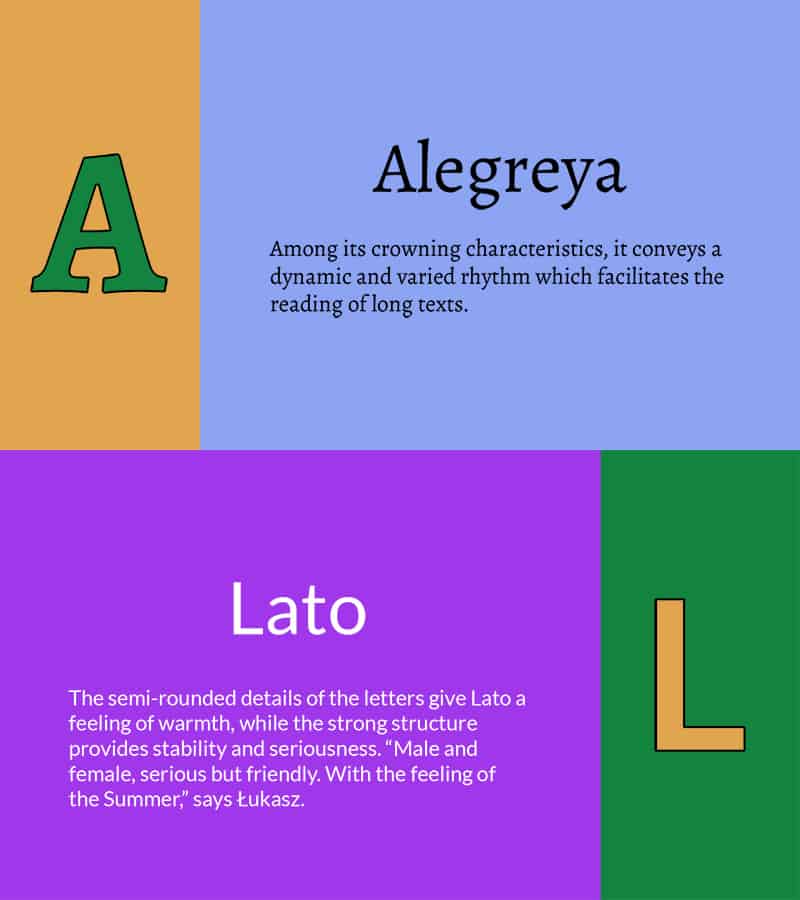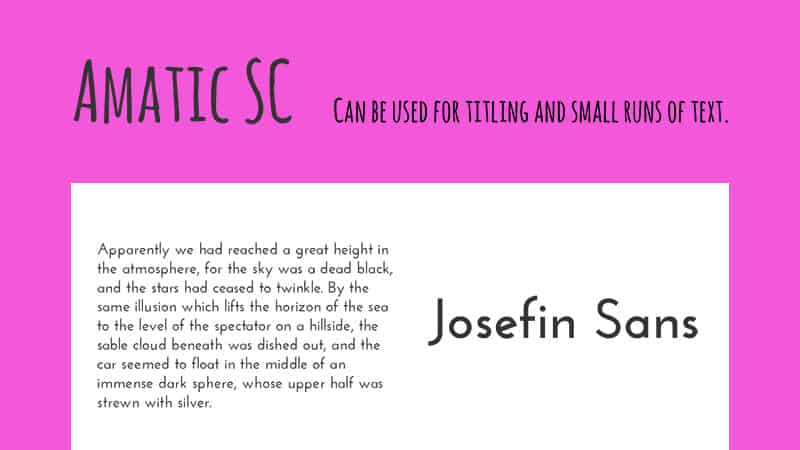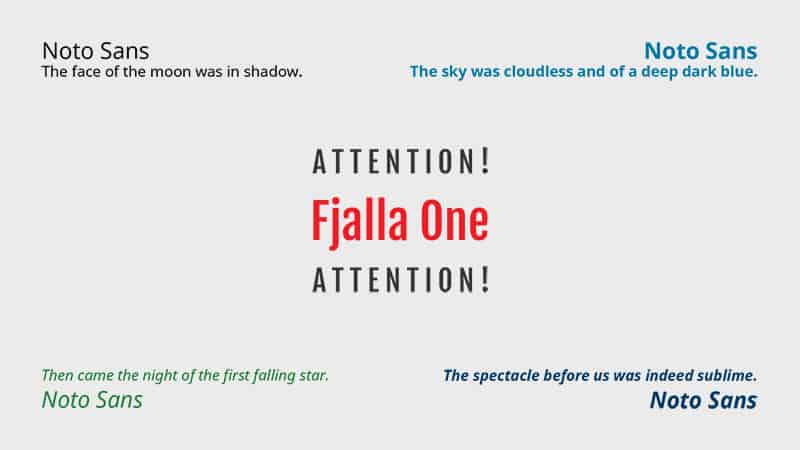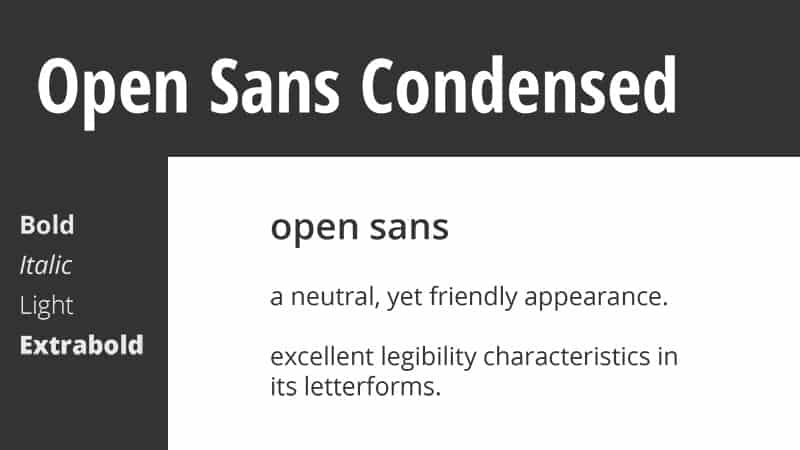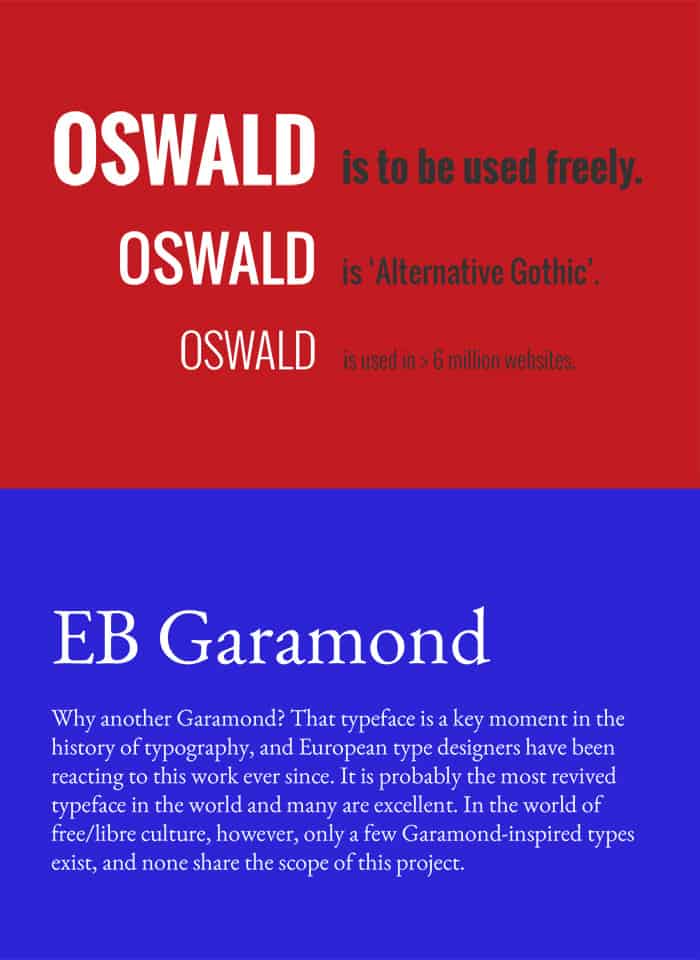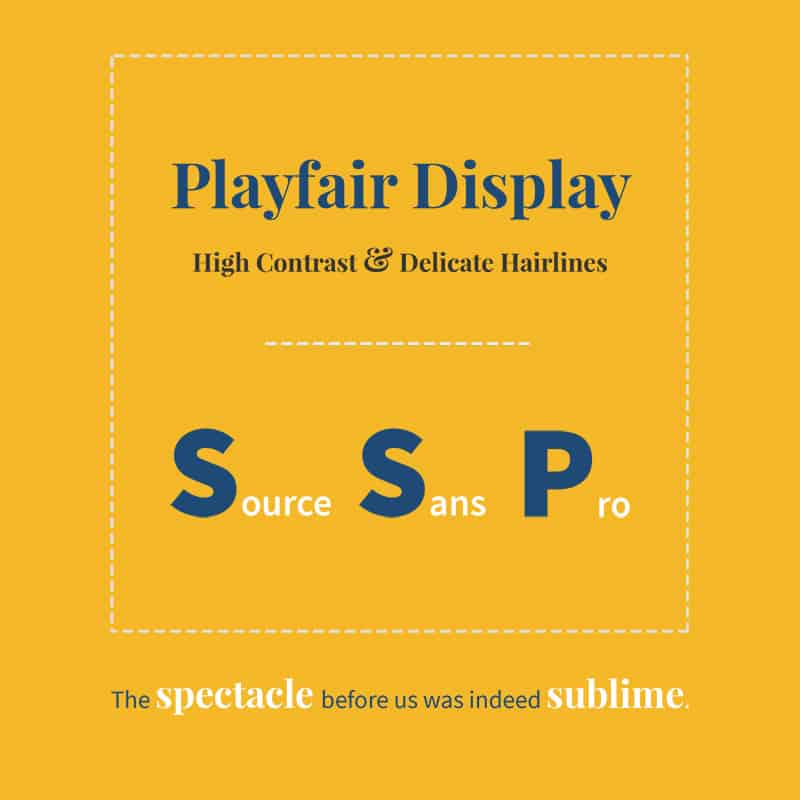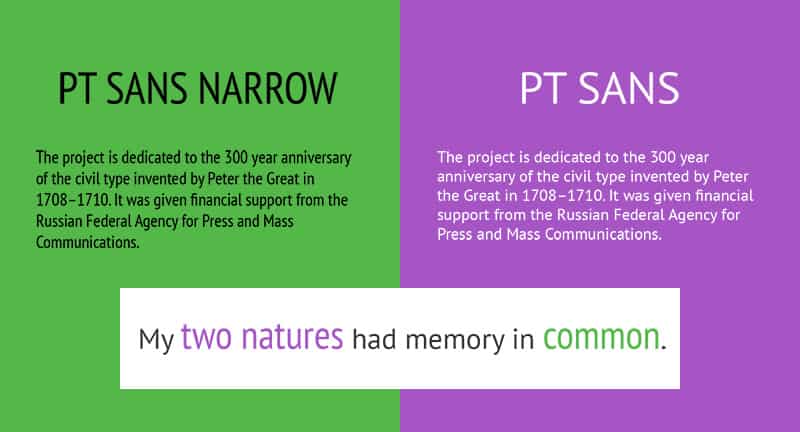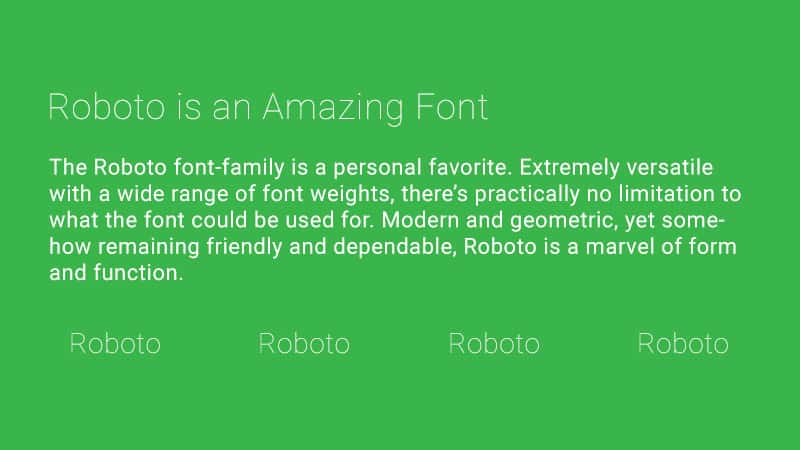
10 Awesome Google Font Combinations Currently Trending
Website typography used to be a more mystifying design practice than it is today. The complicated process of decorating a web page with custom fonts once required converting and embedding font files to be hosted on the user’s server, and the choice of available fonts was limited to the user’s own collection or knowledge of typography outside of the standard system fonts. As a result, most websites looked nearly identical in their content formatting, which relied on many overused and mundane web safe fonts.
That all changed in 2010 with the release of Google Fonts, an open-source project that allows for far easier implementation of custom fonts on websites. Installing these fonts on your own website is luckily a process that is quick and easy, but you should be aware that not every font combination in Google’s library is a recipe for typographical success. With the right font pairings and usage considerations, however, your online brand can exude professionalism, beauty and reader friendliness without the need for expensive customized fonts. In this article, I’ll show you how to accomplish all this.
A List of 10 Trending Google Font Combinations
Let’s get to it! In no particular order, here are 10 of the best Google Font combinations currently trending:
1. Open Sans
Trending Google Font Combination - Open Sans Condensed and Open Sans
Here’s an easy combination that works wonders for nearly any applicable use. Open Sans is one of—if not the—most versatile fonts in the entire collection of Google Fonts. It’s extremely easy to read in large blocks of text, while still being striking enough for headlines.
Simple. Sophisticated. Familiar. You can’t go wrong!
Real-World Use
I can’t foresee any scenario where Open Sans would be a poor choice. Unless you’re looking specifically for a serif font, I think this one will serve most any business, blog, landing page, or web app perfectly.
2. Oswald + EB Garamond
Trending Google Fonts combination - Oswald with EB Garamond
Oswald is a great font for headlines no matter the font-weight or use of caps. Its condensed nature helps it grab attention and pop, but it also makes for a pleasantly unique text as your main body’s font.
EB Garamond is an elegant update of the classic Garamond font. Instantly recognizable and timeless in appearance, this font exudes a distinctive professionalism in your typography.
Real-World Use
This pairing works well for professionals dealing with high-end clientele, such as attorneys, real estate agencies, or even upscale boutiques. The versatility of Oswald and the classical look of EB Garamond make for great product description text where it’s important to emphasize an item of premium quality.
3. Montserrat + Merriweather
Trending Google Fonts combination - Montserrat with Merriweather
Montserrat is a favorite among designers for its versatility and simplicity, and Merriweather pairs wonderfully with its contrasting style and easy readability. Feel free to interchange them as headlines or paragraph text—they both work great as either!
Real-World Use
This particular combination is a nice balance of modern and classic design. As such, its variety of uses could support many types of businesses. Personally, I feel these fonts would do well for any type of online news source or publishing agency.
4. Roboto Thin + Roboto Regular
Trending Google Fonts combination - Roboto Thin with Roboto Regular
The Roboto font-family is a personal favorite and it’s also one that we use here at How To Get Online. Extremely versatile with a wide range of font weights, there’s practically no limitation to what the font could be used for. Modern and geometric, yet somehow remaining friendly and dependable, Roboto is a marvel of form and function.
Real-World Use
Here’s another pairing that you’d be hard-pressed to find an ill use for. While Roboto works for just about anything, I think it’s particularly great for tech start-ups, modern small businesses, or any type of brand with an eye to the future.
5. Raleway + Roboto Slab
Trending Google Fonts combinations - Raleway with Roboto Slab
It’s our friend Roboto again! This time, however, we’re looking at the serif variation, Roboto Slab. It’s a font that is just as versatile as its cousin, yet a bit more classical in style. When paired with the distinctive and bold Raleway, we have an amazing match of clean and refined typography.
Real-World Use
Raleway is one of those fonts that screams sophistication. When used as an all-caps headline, I think it works beautifully for luxury items like jewelry, designer clothing, or similarly upscale ecommerce products. Roboto Slab supports it well with simple and approachable descriptive text.
They both work interchangeably as well. Try different weight variations for both fonts in the headlines and body text and see which pairing captures your brand the best.